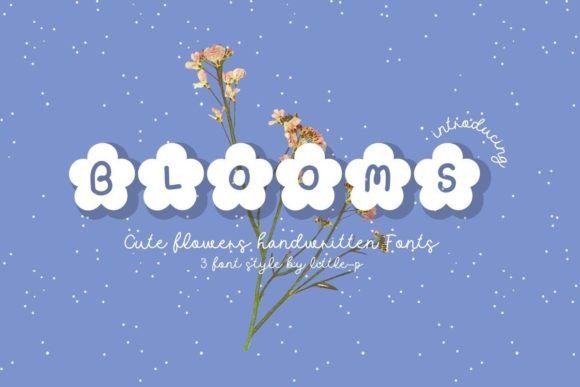
Introducing "Blooms" - Where Whimsy and Elegance Dance Together
Discover the enchanting world of "Blooms," a decorative font family that is not just a collection of letters, but an art form. With its playful flower-shaped elements, "Blooms" adds a dash of magic to your designs, captivating the hearts of those who lay their eyes upon it.
The "Blooms" font family consists of three versatile styles - regular, line, and bold - each possessing its own unique charm. Whether you seek a soft and gentle touch or a bold and striking statement, "Blooms" has you covered.